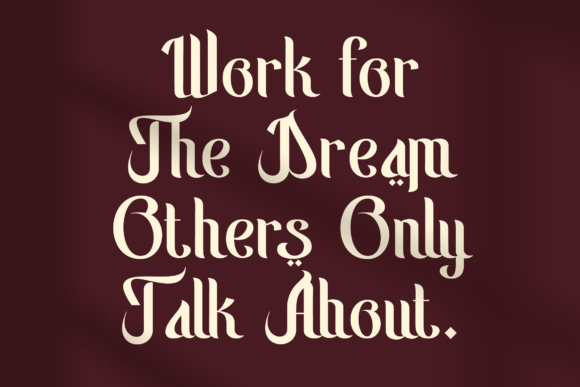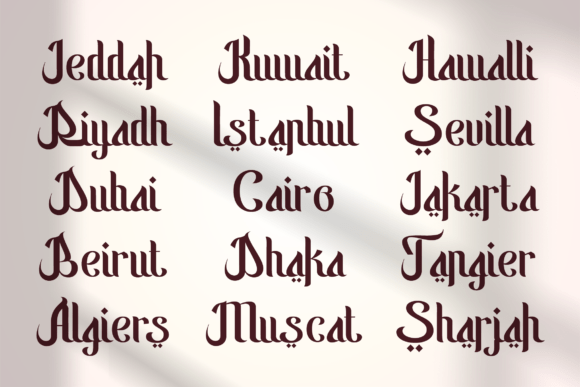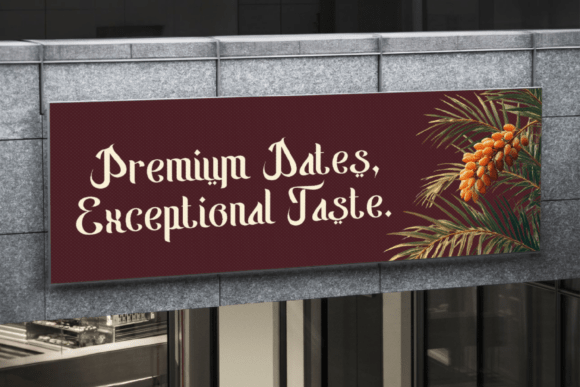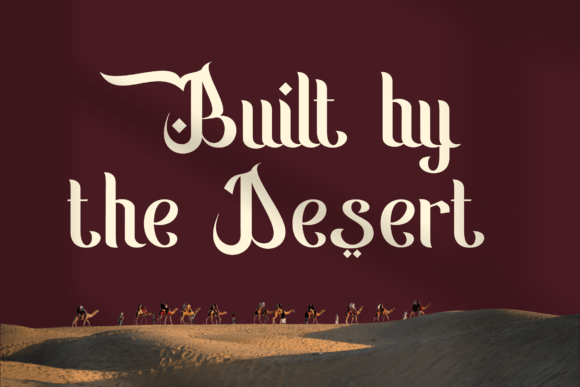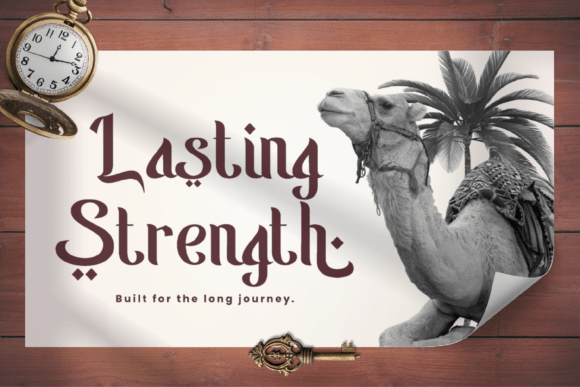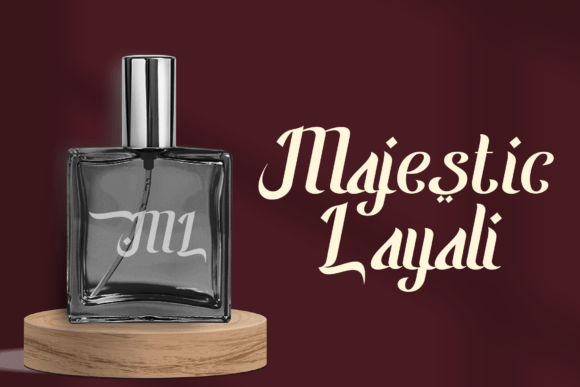
Introduction to Hakia Qafila Font
Imagine yourself lost in the vibrant streets of a Middle Eastern city, surrounded by the whispers of ancient wisdom and the rhythmic beat of nomadic caravans. As the sun sets, the sound of calligraphy echoes through the air, and the beauty of Arabic script comes alive. This is the essence of the Hakia Qafila Font, a design treasure that transports you to a world of cultural richness and timeless elegance.
As a designer, you’re constantly seeking the perfect tool to elevate your creative project and leave a lasting impression. The Hakia Qafila Font is a high-quality addition to your design arsenal, offering a unique blend of tradition and modernity. With its free download and transparent background, you can effortlessly incorporate this beautiful typeface into your work, adding a touch of sophistication and cultural depth to your designs.
Key Features of Hakia Qafila Font
- Designed to be a versatile design resource, perfect for various creative projects, including logos, branding, and graphics.
- Unique characteristics: elegant, modern, and exotic feel, making it an excellent choice for projects requiring a distinctive aesthetic.
Honest Review: Hakia Qafila Font
I recently stumbled upon the Hakia Qafila Font while searching for a unique design resource for my next creative project. The font caught my eye due to its high quality and quirky charm.
- ⚠️ The font may not be suitable for all types of projects, as it has a more artistic and expressive feel.
Overall, I’m impressed with the Hakia Qafila Font’s unique design and high quality. While it may have some limitations, it’s definitely a great addition to any designer’s toolkit. If you’re looking for a creative and expressive font for your next project, I’d definitely recommend giving it a try.
Hakia Qafila Font
The Hakia Qafila Font is commonly used for creative projects, such as graphic design, logo creation, and typography. It’s also used for creating visual content for social media, websites, and other online platforms.